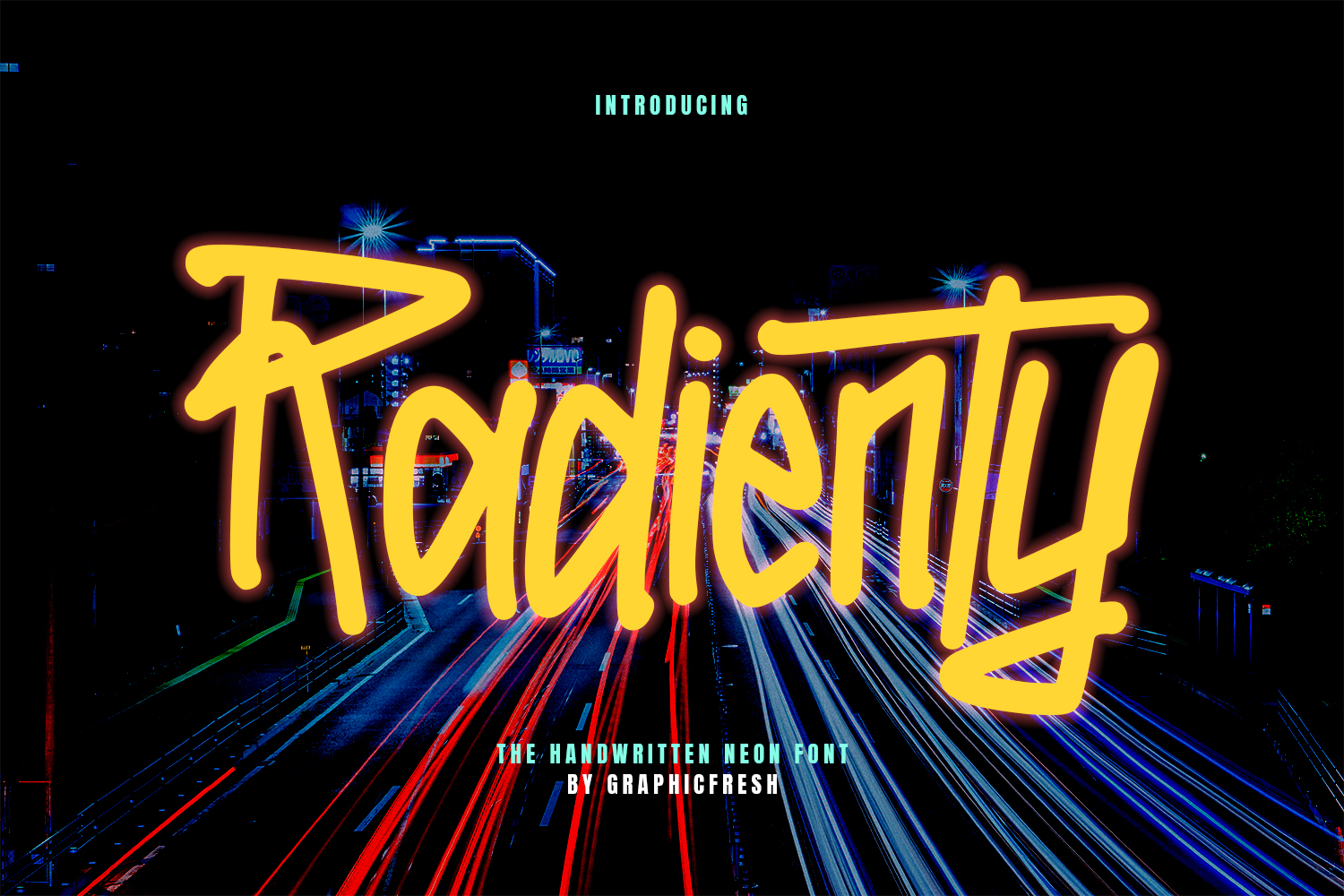
Radienty - Handwritten Neon Font
Radienty is a handwritten neon font that blends vibrant glow aesthetics with natural freehand strokes. Designed to capture the energy of city lights and nightlife vibes, this font delivers a luminous electric presence while keeping an organic handwritten flow. Its smooth curves and glowing character make it perfect for branding, headlines, posters, social media graphics, event promotions, and creative projects that need a bold neon statement.